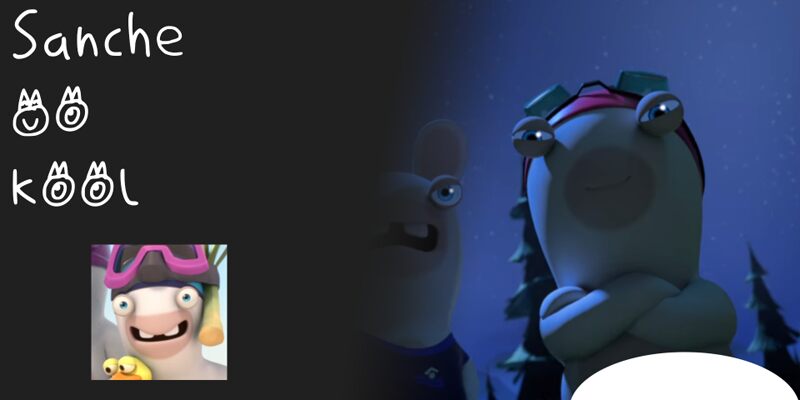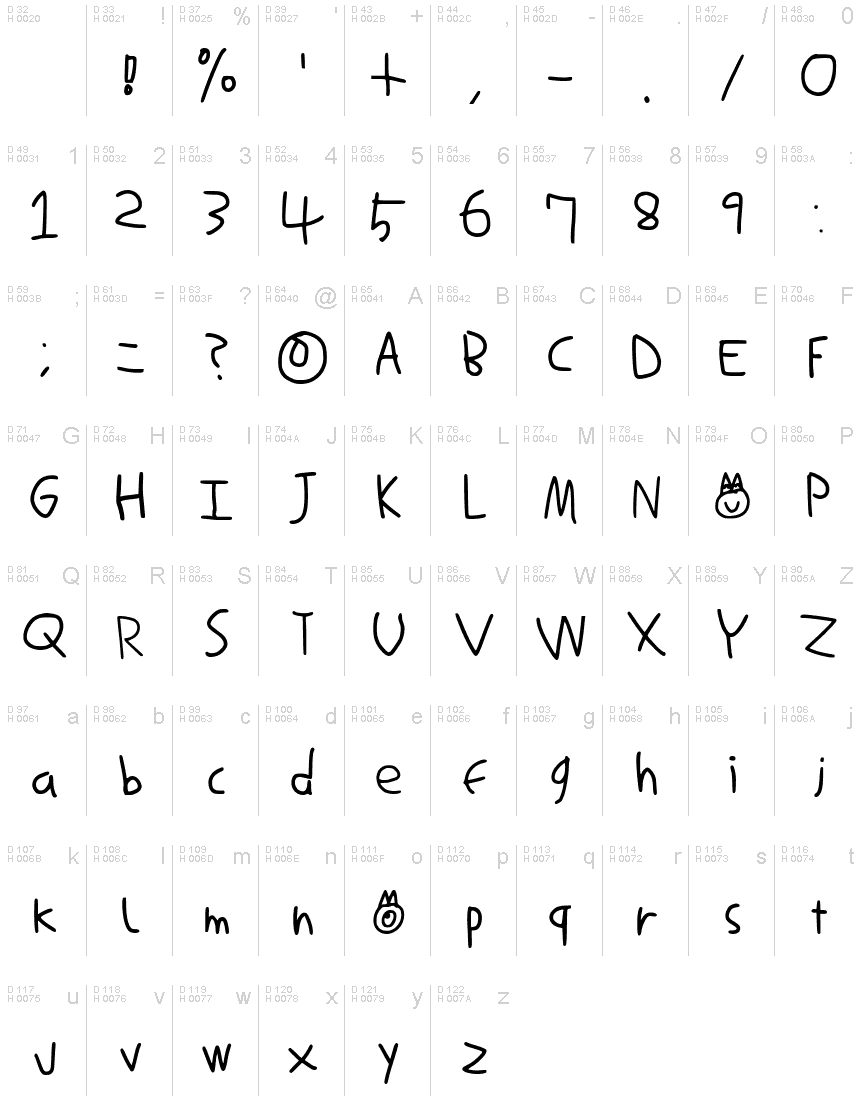
Sanche Regular
Sanche is a casual handwritten font created by its namesake designer. This light, playful font is perfect for adding a personal touch to any project. It is versatile enough to be used in both digital and print media, from greeting cards and invitations to logos and flyers. Use Sanche to bring personality and emotion into your designs, no matter the occasion!